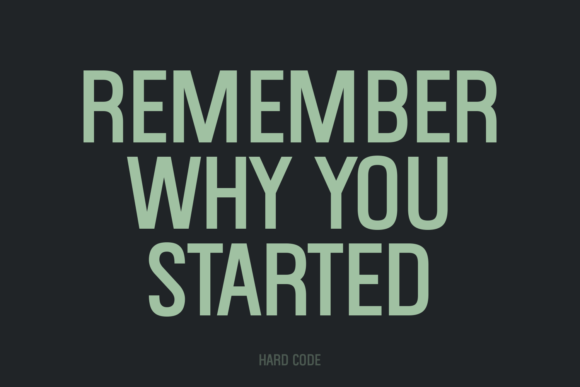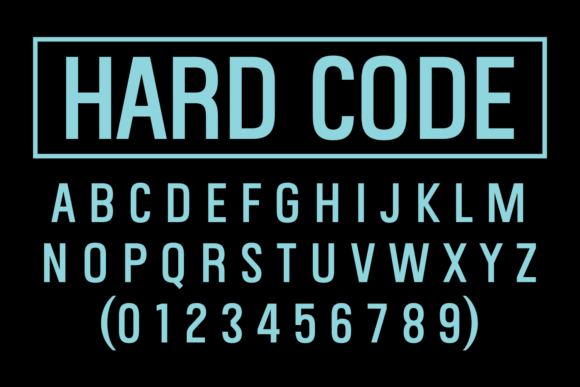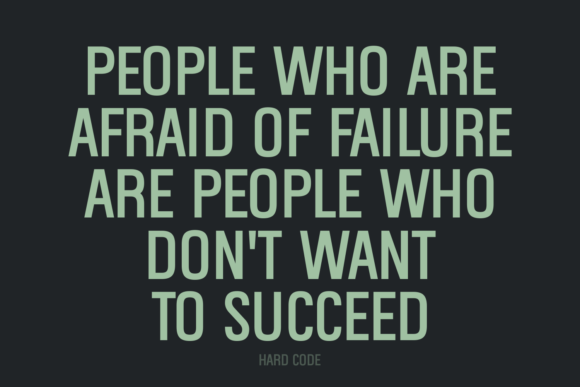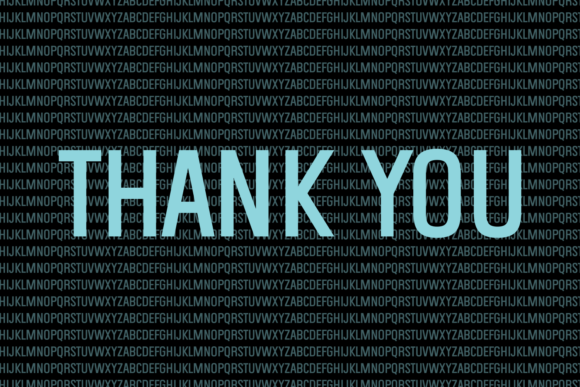
Introducing Hard Core: The Ultimate Sans Serif Font for Modern Elegance
In the world of typography, fonts play a crucial role in conveying the tone and aesthetic of a brand or design. For designers and crafters, finding the perfect font that embodies modern elegance and sophistication can be a daunting task. However, with the introduction of Hard Core, a stunning sans serif font, the search is over. This premium font is designed to capture the quintessence of modern elegance and fancy aesthetics, making it an ideal choice for any design project.
The Quintessence of Modern Elegance
Hard Core is more than just a font – it’s a visual experience. Its beautiful, clean lines and distinctive character make it a standout in the world of typography. The font’s neat and precise capital letters lend a vintage touch, evoking a sense of authenticity and nostalgia. This unique blend of modernity and classic charm makes Hard Core an excellent choice for designers looking to elevate their designs.
Designed for Readability and Authenticity
One of the key features of Hard Core is its exceptional readability. The font’s clean lines and precise lettering make it easy to read, even at small sizes. This makes it an ideal choice for body text, headings, and titles. Additionally, the font’s vintage touch adds a layer of authenticity, making it perfect for designs that require a sense of heritage or tradition.
Hard Core is a versatile font that can be used in a variety of design projects. Whether you’re a graphic designer, a crafty DIY enthusiast, or a digital artist, this font is sure to become a staple in your design arsenal. Use it to create stunning logos, elegant headings, or beautiful body text. The possibilities are endless with Hard Core.
Key Features of Hard Core
- Modern Elegance: Hard Core embodies the quintessence of modern elegance and fancy aesthetics.
- Clean Lines: The font features beautiful, clean lines that make it a visual delight.
- Distinctive Character: Hard Core has a distinctive character that sets it apart from other fonts.
- Vintage Touch: The font’s neat and precise capital letters lend a vintage touch.
- Exceptional Readability: Hard Core is designed for exceptional readability, even at small sizes.
Tips for Using Hard Core
To get the most out of Hard Core, here are a few tips:
- Use it as a headline font: Hard Core’s elegant lines and vintage touch make it perfect for headlines and titles.
- Pair it with other fonts: Experiment with pairing Hard Core with other fonts to create a unique and visually appealing design.
- Use it for body text: Hard Core’s exceptional readability makes it suitable for body text, especially for designs that require a lot of written content.
| Font Name | Hard Code Font |
| Author | Darman (7NTypes) |
In conclusion, Hard Core is a premium sans serif font that embodies modern elegance and sophistication. Its beautiful, clean lines, distinctive character, and exceptional readability make it an ideal choice for designers and crafters. Whether you’re looking to create stunning logos, elegant headings, or beautiful body text, Hard Core is the perfect font for your design project.